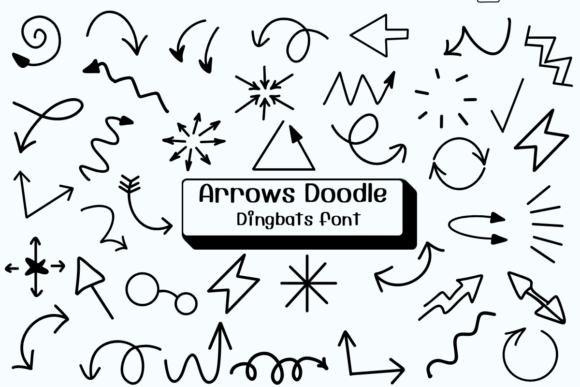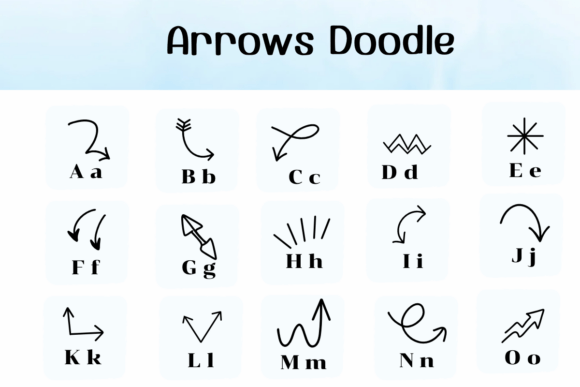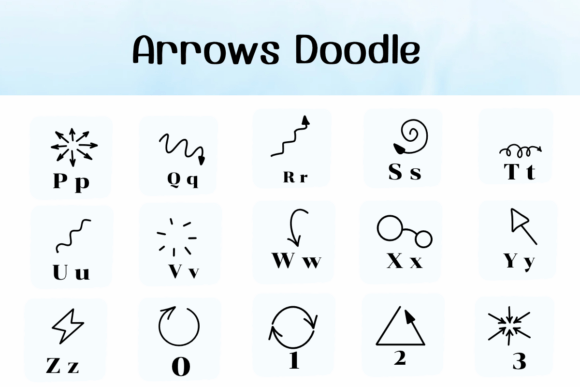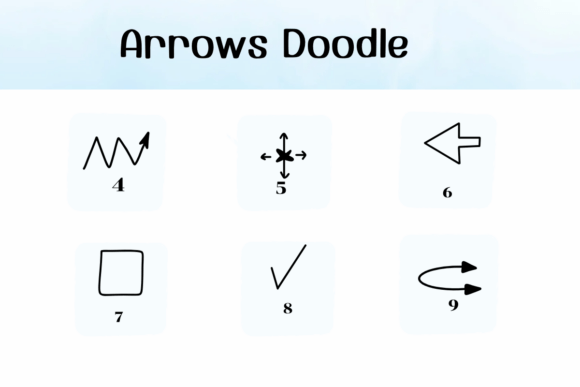
Arrows Doodle Font: A Fun & Sketchy Dingbats Font for Cricut & DIY
About the Arrows Doodle Font
Add a touch of class to your work with the Arrows Doodle Font, a truly exceptional typeface. ARROW DOODLE is a dingbats font with theme with a sketch style. This font can enhance your creative projects such as wedding invitations, DIY, crafts, decorations, logos, and many other creative ideas.
Arrows Doodle Font’s sketched style is best suited for headlines, logos, and short, impactful text within branding materials or packaging design. Its playful nature makes it ideal for projects targeting younger demographics or those with a handcrafted, artisan feel. Avoid using it for body copy or lengthy paragraphs; its informal style is less legible at smaller sizes.
The font’s hand-drawn quality pairs well with clean sans-serif fonts like Open Sans or Lato for a balanced contrast. For a more whimsical effect, consider pairing it with a script font like Great Vibes, but keep the script usage minimal. Alternatively, a geometric sans-serif such as Montserrat could provide a modern edge.
Arrows Doodle Font projects a friendly, approachable, and slightly quirky personality, perfect for brands focused on creativity, playfulness, or a handmade aesthetic. It lacks the sophistication for high-end luxury brands or formal applications.
Arrows Doodle Font Usage Examples
Arrows Doodle Font Example